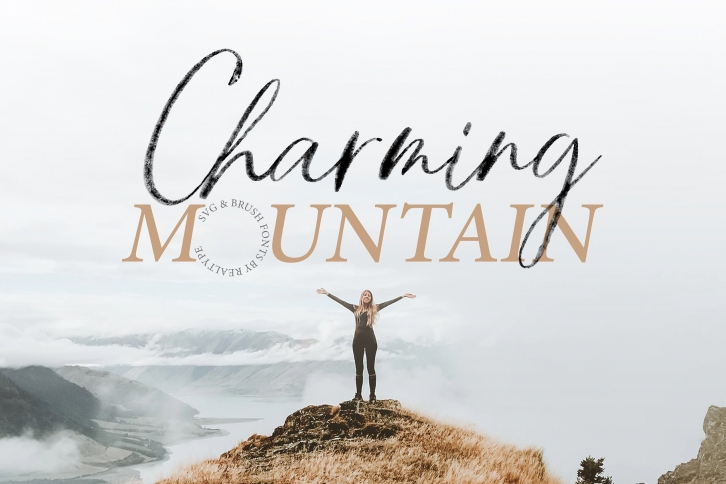
Charming Mountain is a great font that was designed by realtype. Imagine the amount of combinations you can create using this font! The archive is 13.31 MB and it was released on July 30, 2018. Charming Mountain looks beautiful on wedding invitations, greeting cards, logos, posters, labels, t-shirt designs, logos, business cards and is perfect for use in ink or watercolor works, fashion, magazines, packaging and food menus, children's books and more!